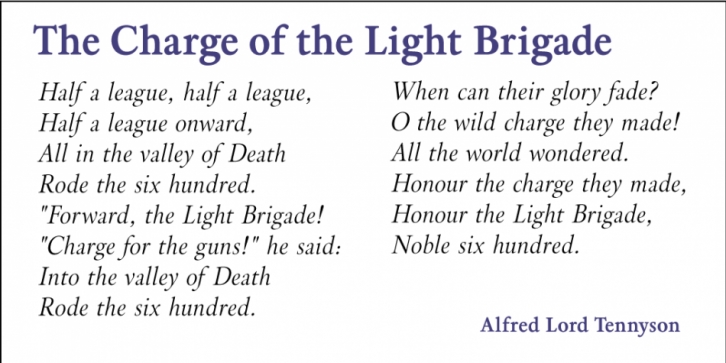
Brigade is a serif font family. This typeface has seven styles and was published by Alan Meeks Collection.
In searching for a Roman to use there were bits of Bembo,Times,Garamond etc. that I liked and bits that I did not. So I set out to take the best bits of all my favourite Romans and tried to create the ultimate Roman Typeface.
Brigade